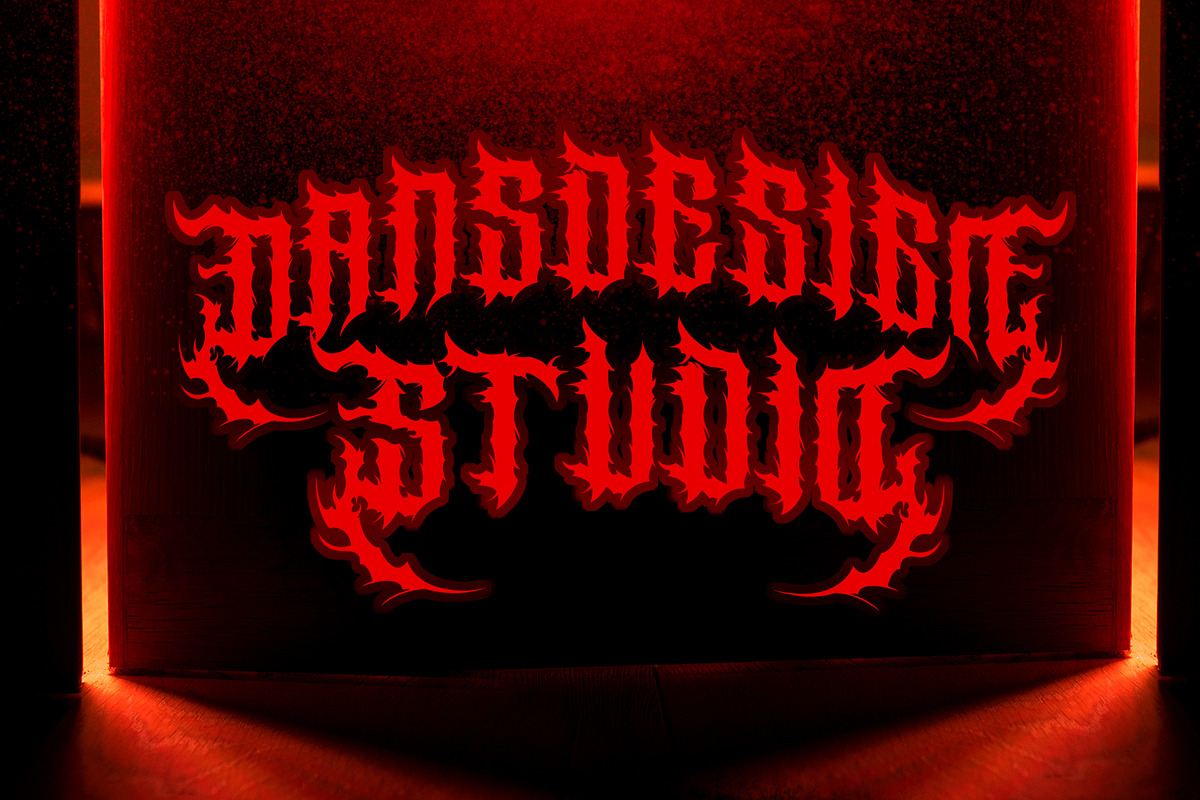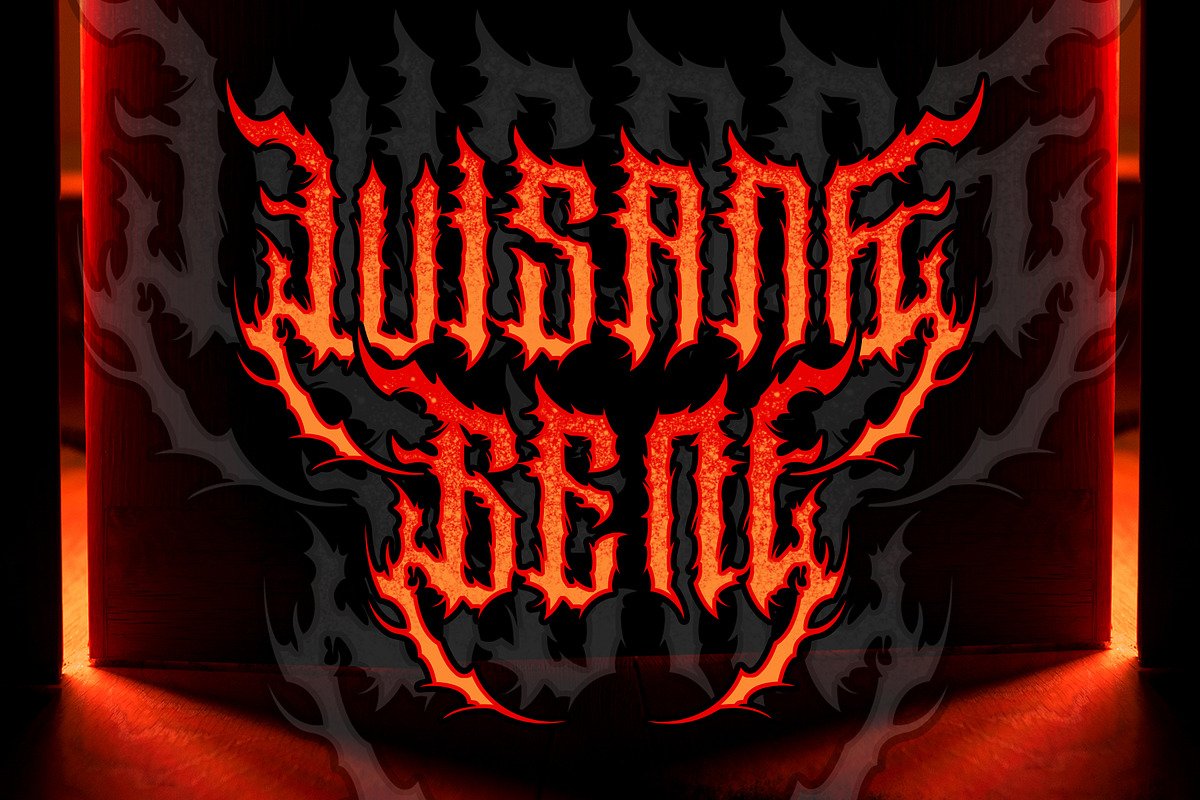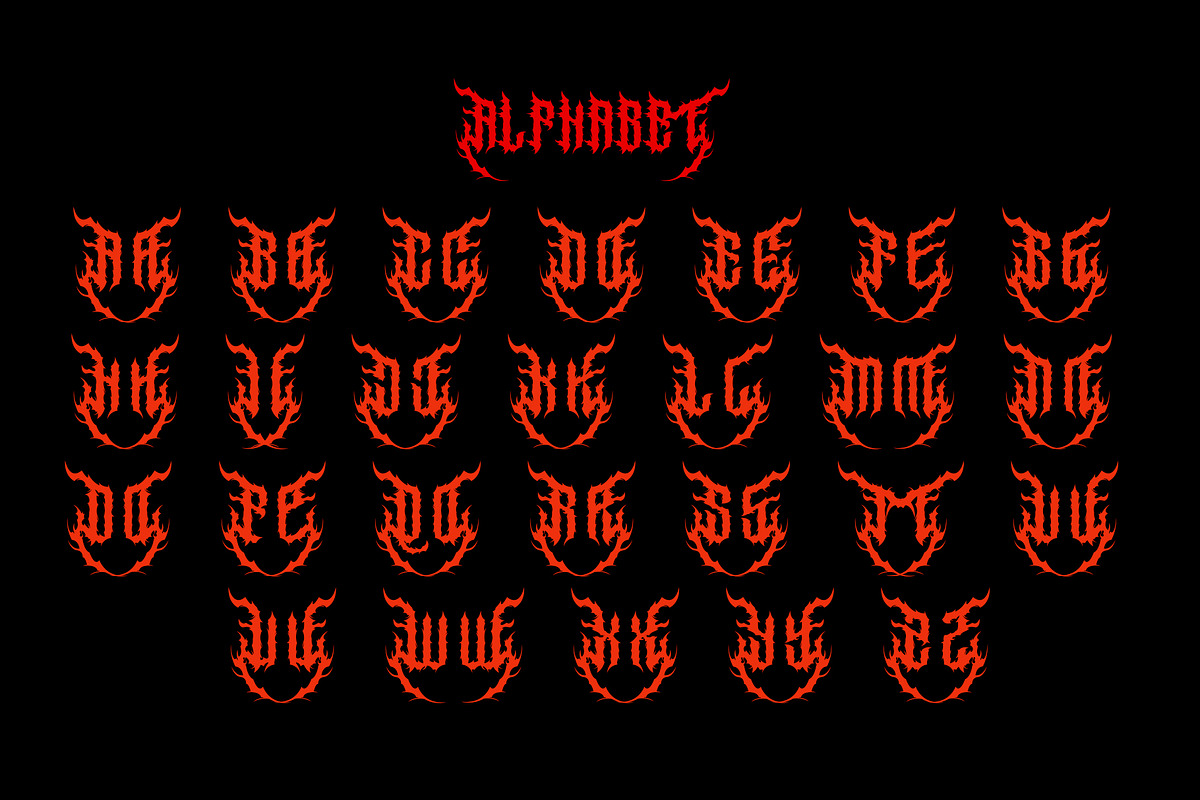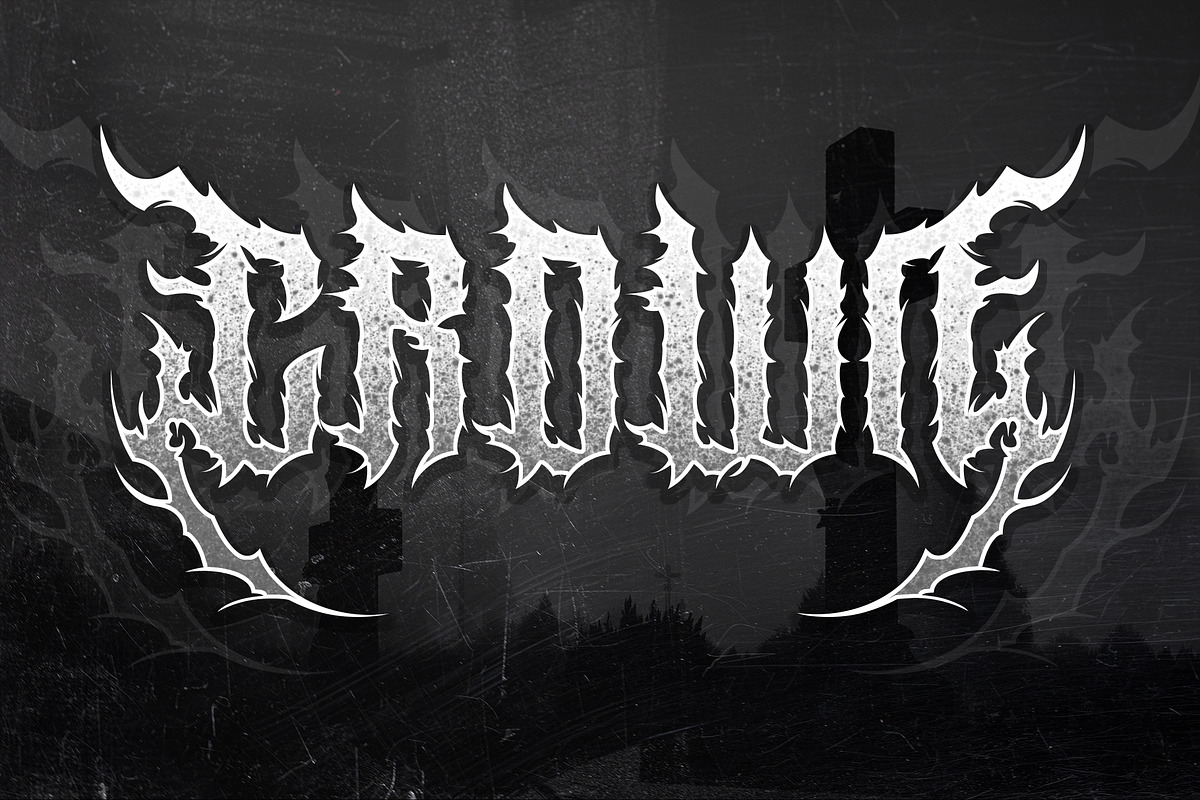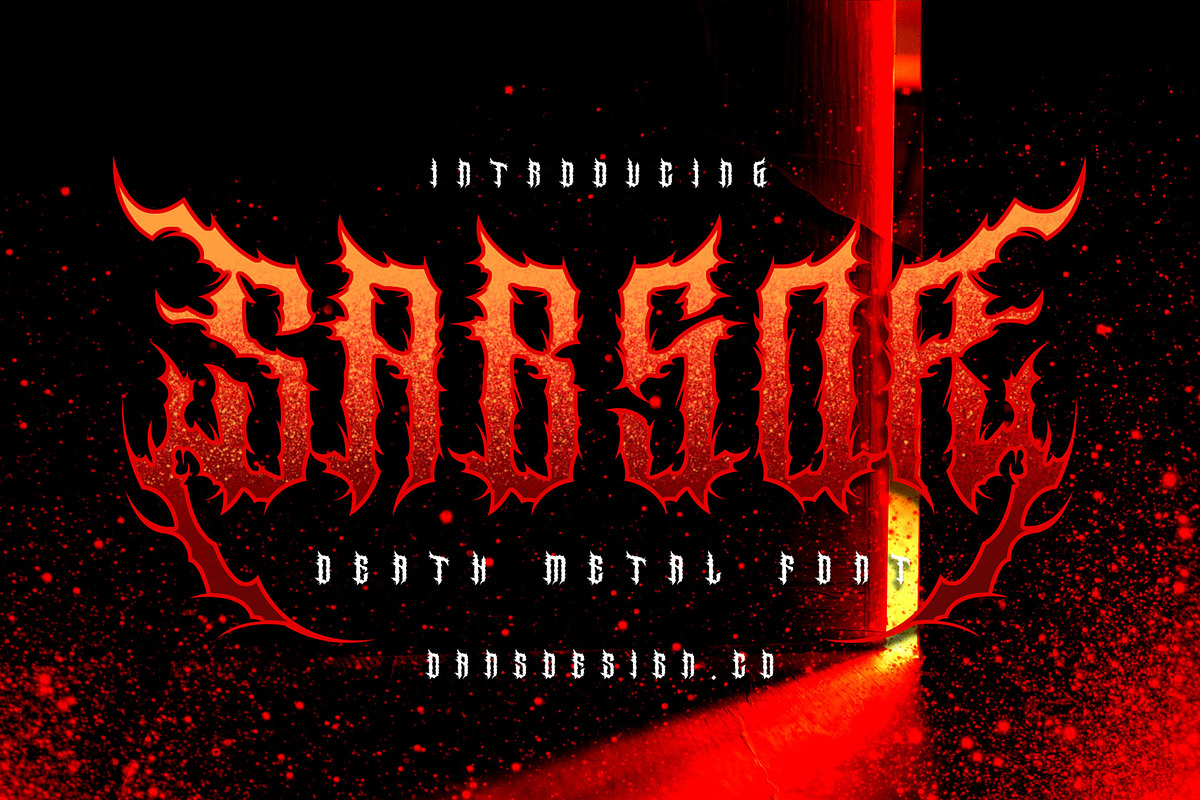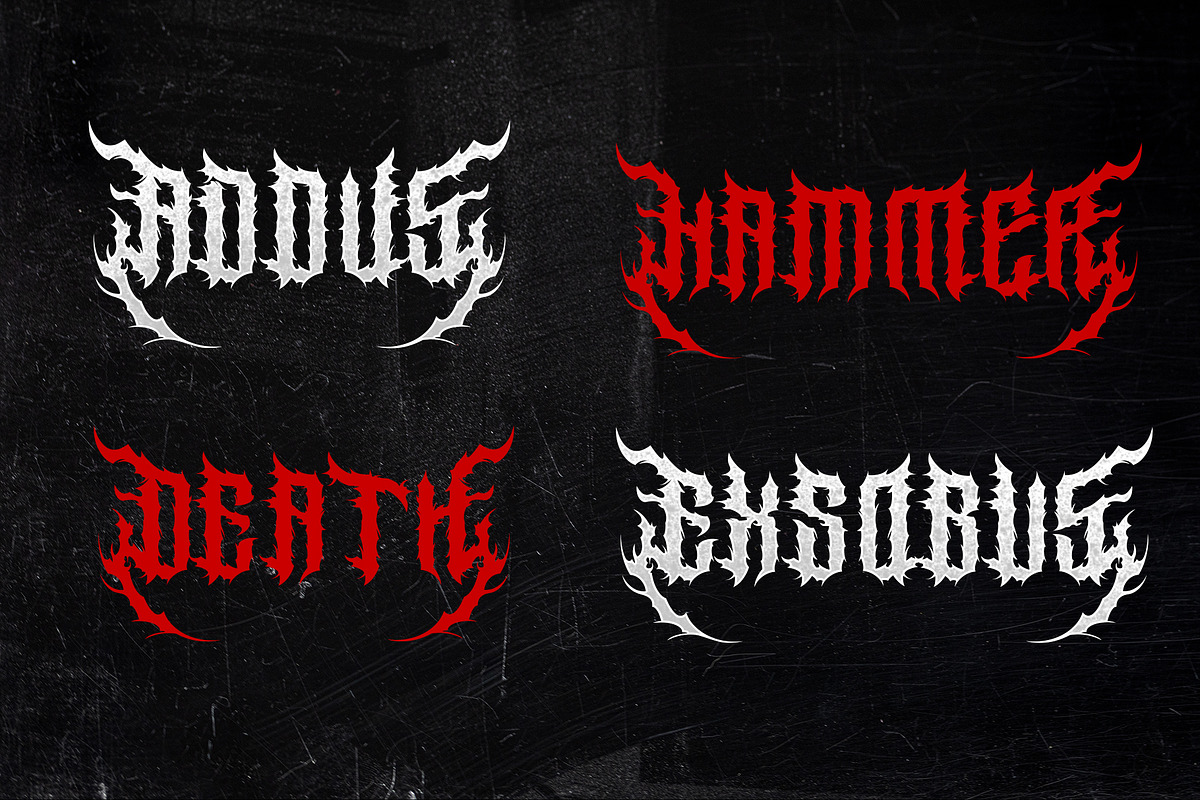
SabsoR Metal Horror Font
SabsoR – Metal Horror Font is a powerful gothic typeface that blends the brutality of heavy metal with the dark elegance of blackletter design. Featuring sharp strokes, distorted shapes, and intense details, this font creates a haunting and aggressive atmosphere perfect for projects that demand a bold visual statement.
Ideal for metal band logos, horror movie titles, album covers, concert posters, streetwear branding, tattoos, and merchandise, SabsoR delivers a dramatic and rebellious character that instantly grabs attention. Its handcrafted feel and intricate gothic details make it a perfect choice for designers seeking to express darkness, strength, and attitude.
SabsoR comes with uppercase, lowercase, numbers, punctuation, and multilingual support (PUA encoded), ensuring flexibility for both print and digital projects. Whether you’re designing for music, horror, or alternative culture, this font adds a sinister and unforgettable edge to your work.